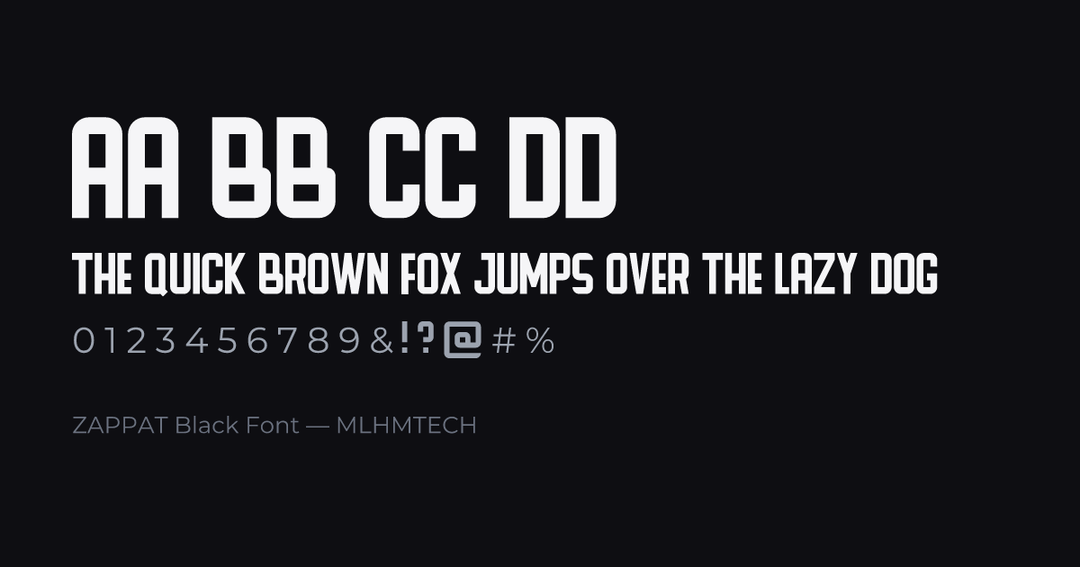
ZAPPAT Black Font
ZAPPAT Black is a bold, modern sans-serif font that adds impact to any design. Ideal for logos, headlines, and video titles.
ZAPPAT Black is a high-contrast, geometric sans-serif font with a strong presence. Its clean lines and uniform stroke widths make it perfect for contemporary branding, editorial layouts, and eye-catching titles.
Use ZAPPAT Black to make a statement in your next project. Its bold weight ensures readability even at small sizes, while its modern aesthetic keeps your designs looking fresh.